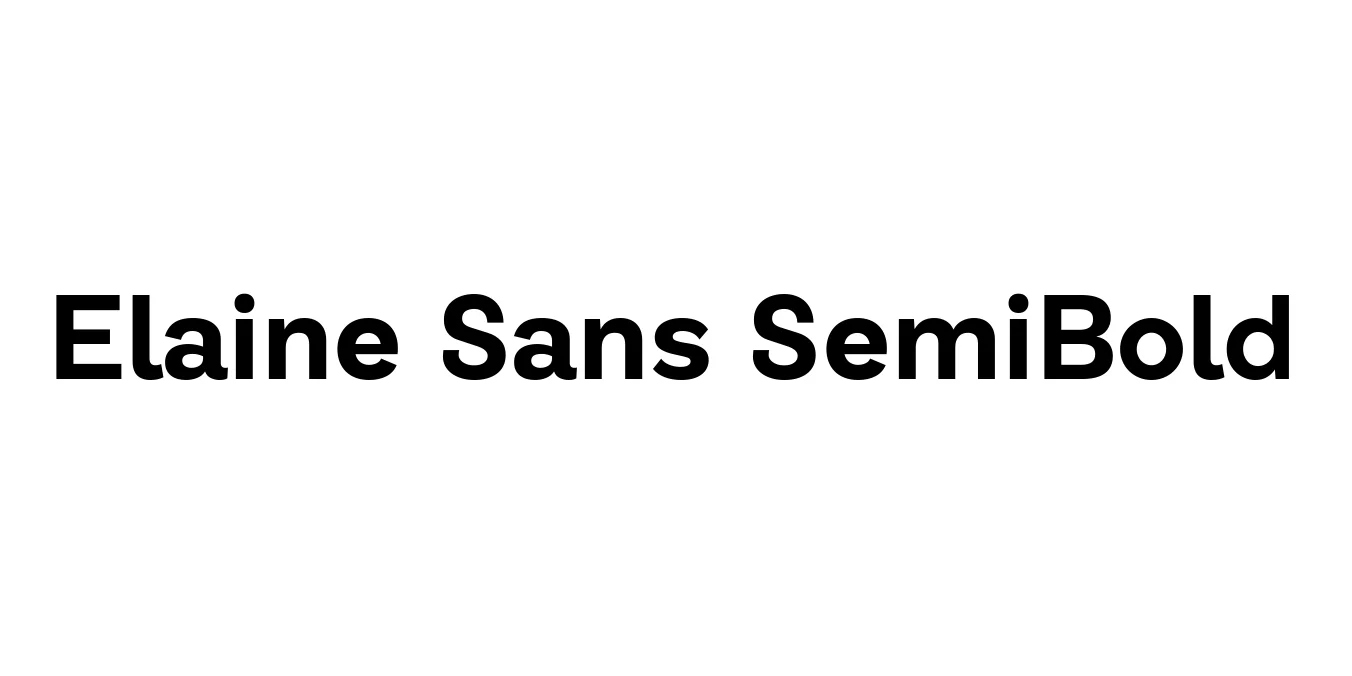
Elaine Sans SemiBold
Designed by Seonwook Kim
Elaine Sans SemiBold is a sophisticated and modern sans-serif typeface designed to provide maximum legibility and a contemporary aesthetic. Created by designer Seonwook Kim, this font family is characterized by its clean, geometric lines and balanced proportions, making it an excellent choice for high-end digital and print projects. The SemiBold weight offers a robust presence that commands attention while maintaining the elegant, minimalist soul of the broader font family.
This typeface was meticulously crafted to perform exceptionally well in diverse environments, from small screen interface elements to large-scale environmental graphics. The Elaine Sans family features humanist influences that prevent it from feeling too sterile, ensuring that it carries a professional yet approachable tone. Its wide range of character sets and precise kerning make it a reliable workhorse for designers who need a versatile font that can transition seamlessly between corporate and creative contexts.
Elaine Sans SemiBold Best Uses
Perfect for logo design and official business documentation.
Ideal for bold titles and high-impact hero sections on websites.
Highly readable for navigation menus and interactive buttons.
Excellent for sub-headings and pull quotes in magazines or reports.